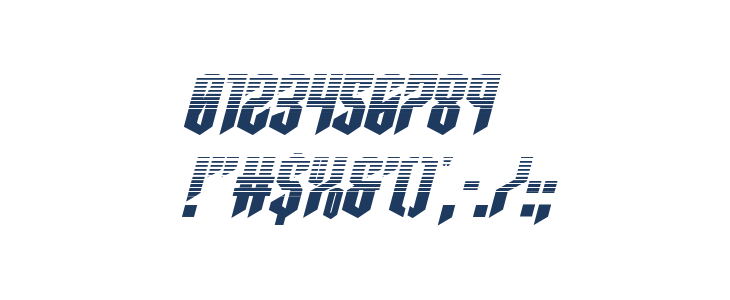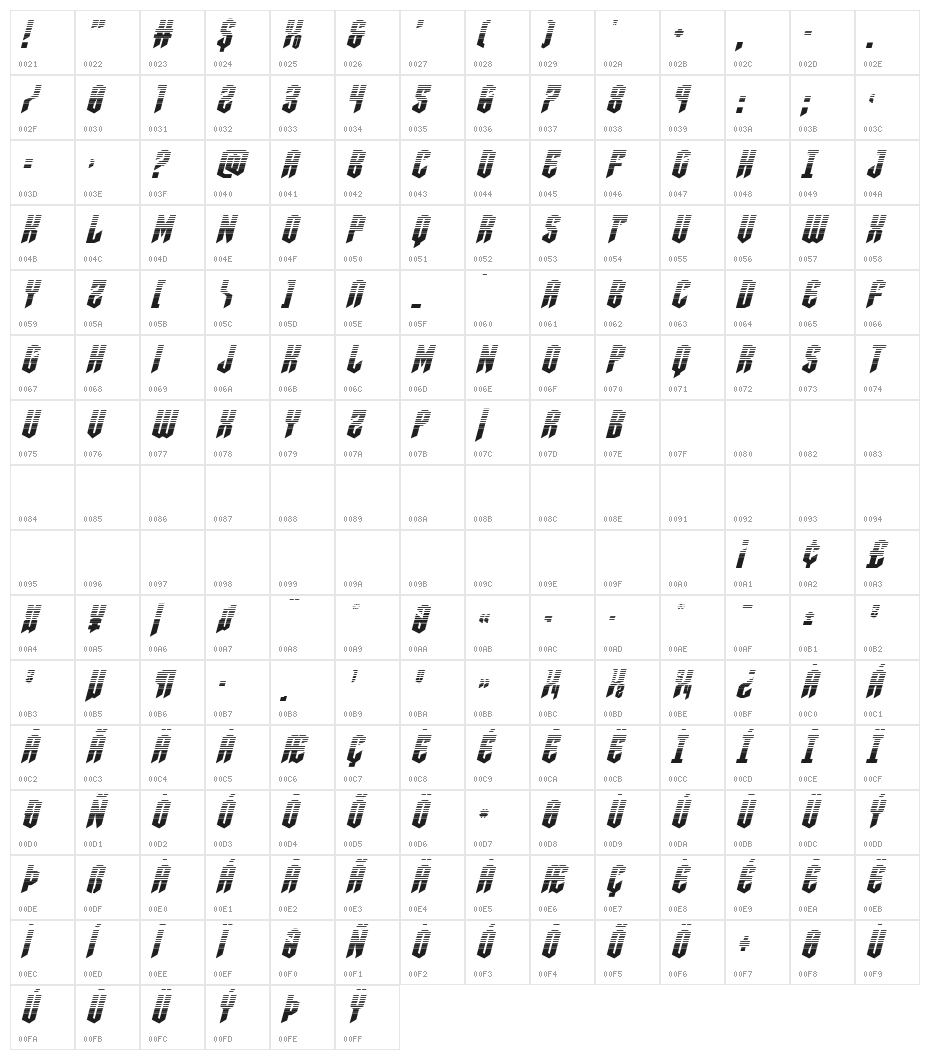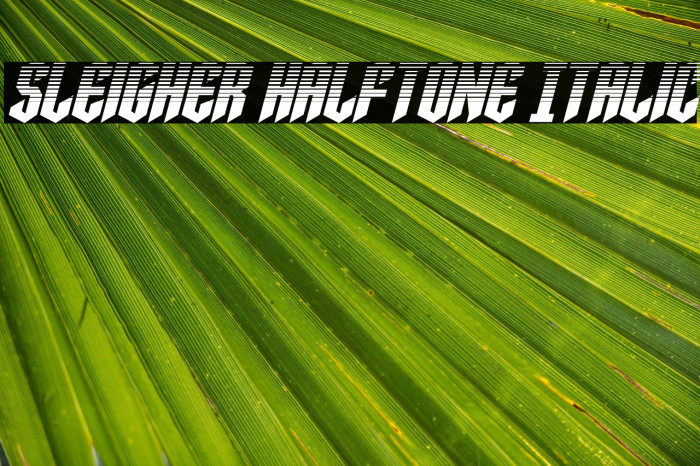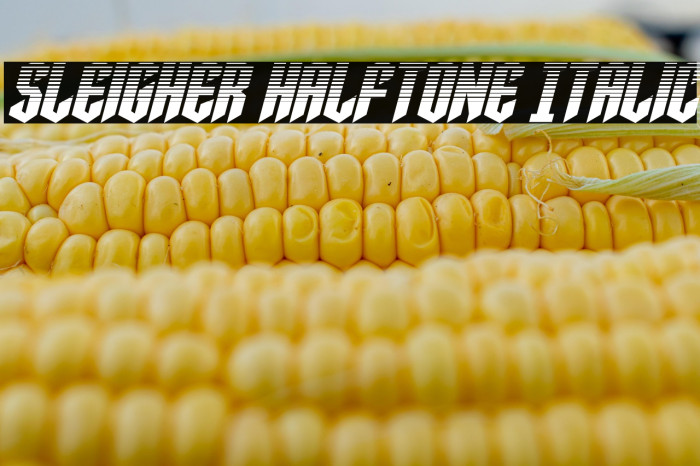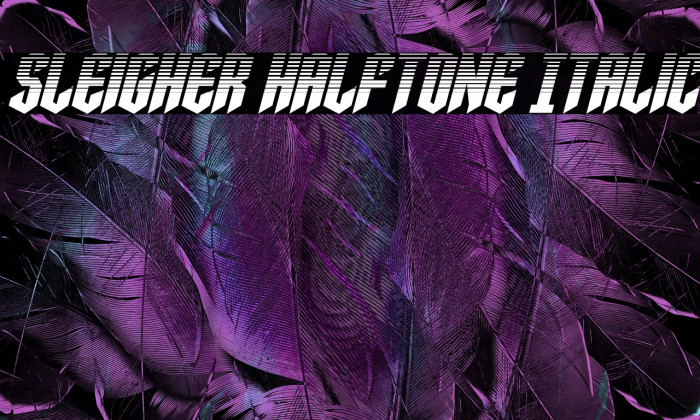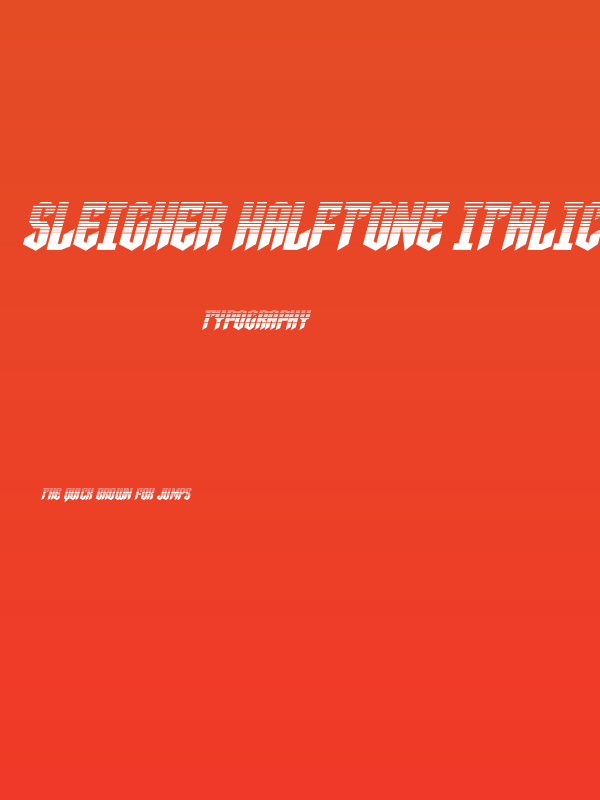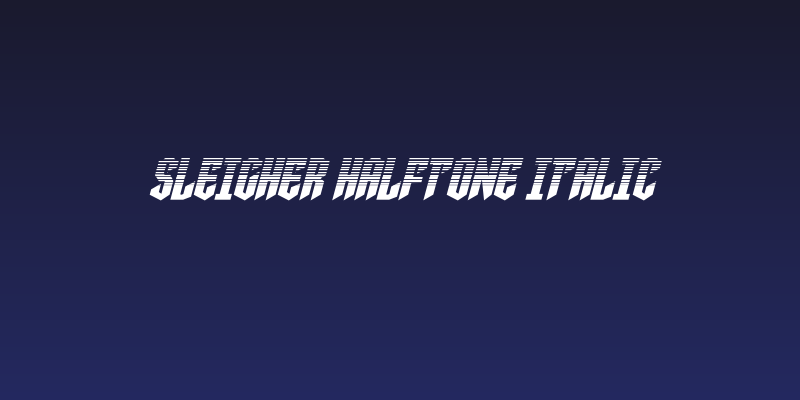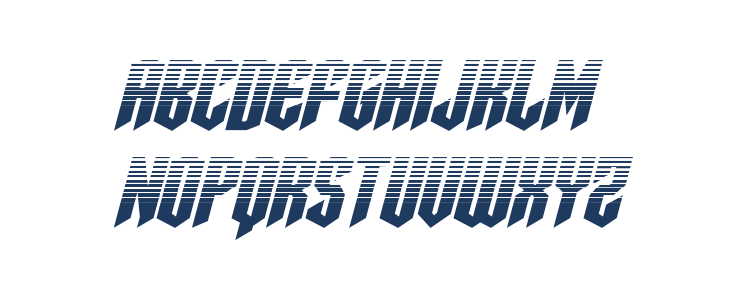
Sleigher Halftone Italic Font
Sleigher Halftone Italic Description
This font features a bold and dynamic design with a halftone effect that gives it a unique, edgy appearance. The characters are italicized, adding a sense of motion and speed. The uppercase and lowercase letters maintain a consistent style, with sharp angles and a strong geometric influence. The numbers and special characters are equally bold, ensuring a cohesive look across all elements. The halftone pattern creates a gradient effect, enhancing the visual impact and making it ideal for eye-catching designs.